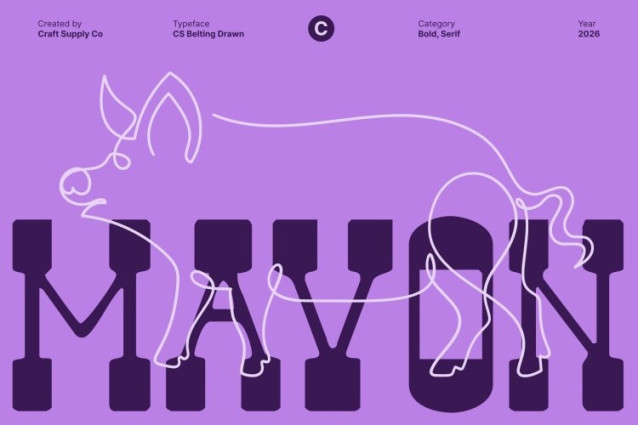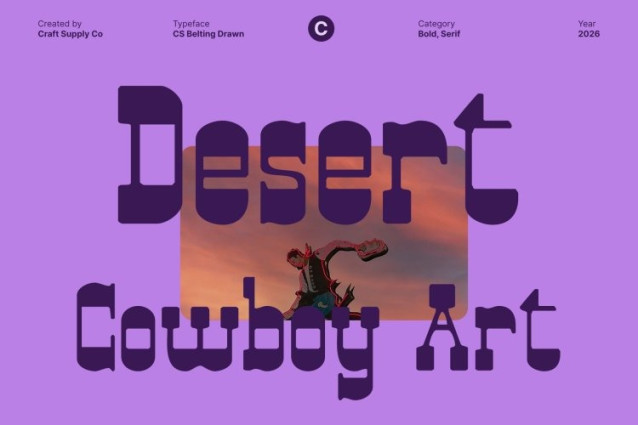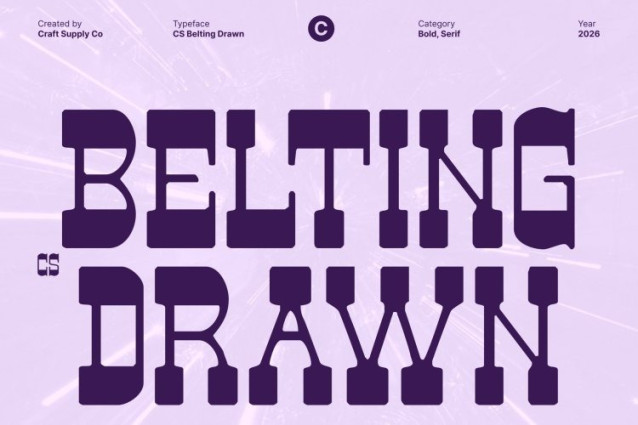
CS Belting Drawn Font
CS Belting Drawn Font This is a bold western display font that channels the untamed spirit of the Wild West. Inspired by classic frontier signage and rugged cowboy culture, this font delivers a strong, confident presence rooted in history and reverse-contrast style. The drawn effect adds a handcrafted nuance that makes the design feel more organic and authentic.
Slab Serifs with Wide, Commanding Letterforms
The defining character of this font lies in its slab-like serifs and wide, commanding letterforms. These sturdy proportions create a grounded and authoritative appearance, while the bold serifs reinforce its rugged western identity. The generous width enhances readability and visual impact, ensuring each letter stands out clearly in headlines and display use.
Rugged Style with Cowboy Grit and Soft Texture
This font captures the raw energy of frontier life through a design that feels tough yet approachable. The drawn texture softens the bold forms, introducing subtle imperfections that add warmth and uniqueness. This blend of strength and softness reflects the grit, independence, and resilience of cowboy culture, making the font feel adventurous, nostalgic, and full of character.
Perfect for Posters, Branding, and Vintage Themes
Designed for high-impact visual applications, this font excels in posters, branding, logos, packaging, and vintage-themed projects. Its western flair makes it especially suitable for rodeo events, outdoor and heritage brands, whiskey labels, apparel, movie titles, and retro-inspired visuals.